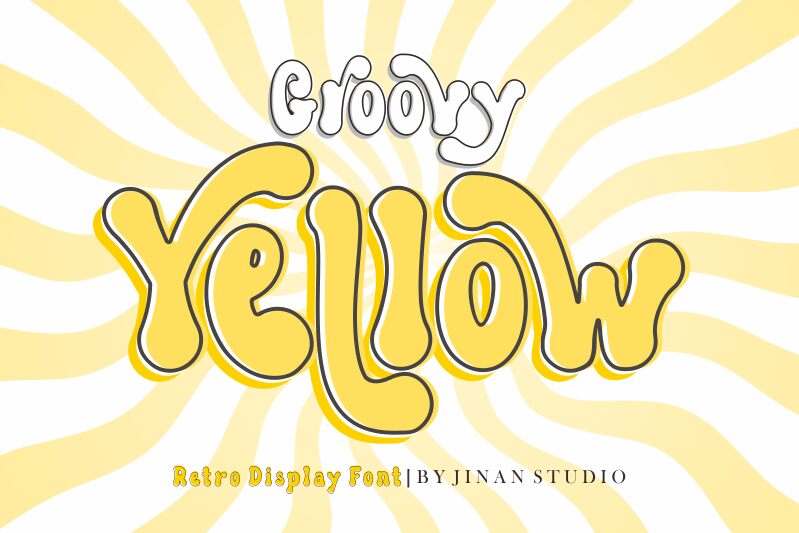
Groovy Yellow
Groovy Yellow font by Ainun Jinan is a groovy display font characterized by its retro aesthetics and whimsical, bold curves. Its condensed style reflects inspiration from the 1960s-1970s psychedelic era, giving it a vintage-inspired look with a smooth flow and casual mood. This free display font is perfect for capturing nostalgia in any creative project.